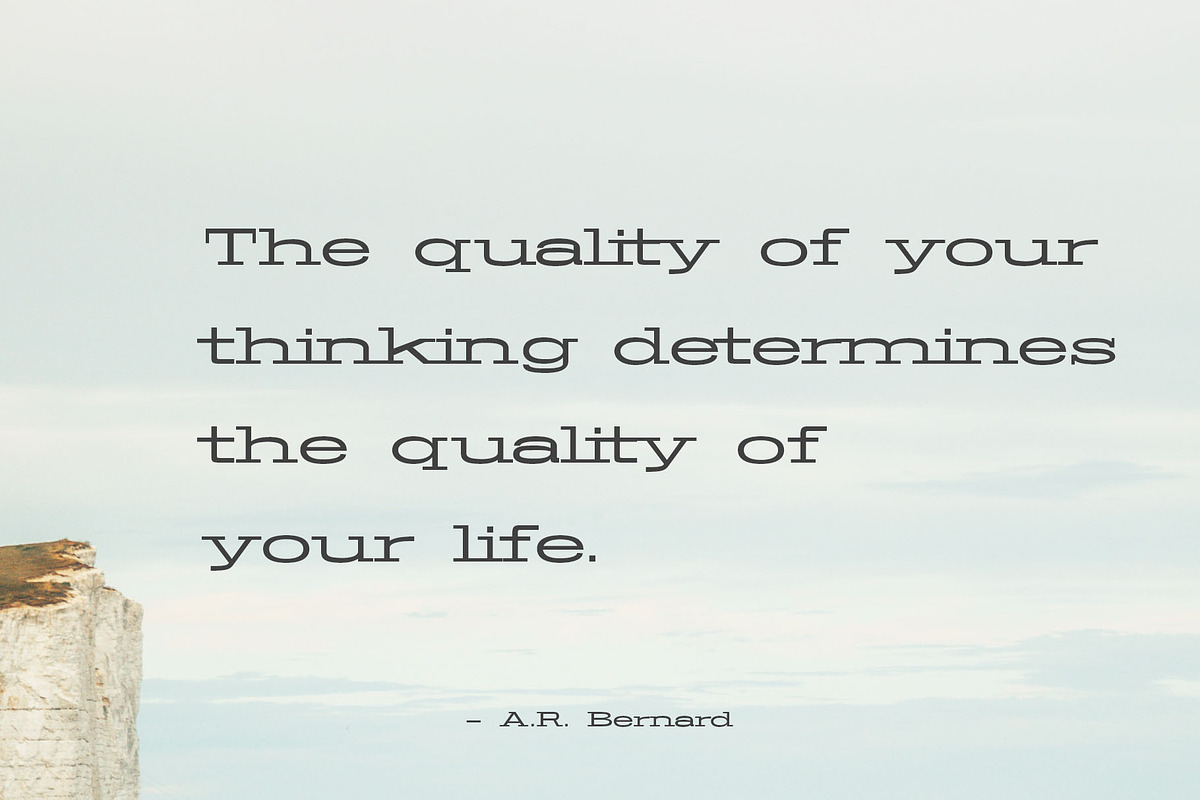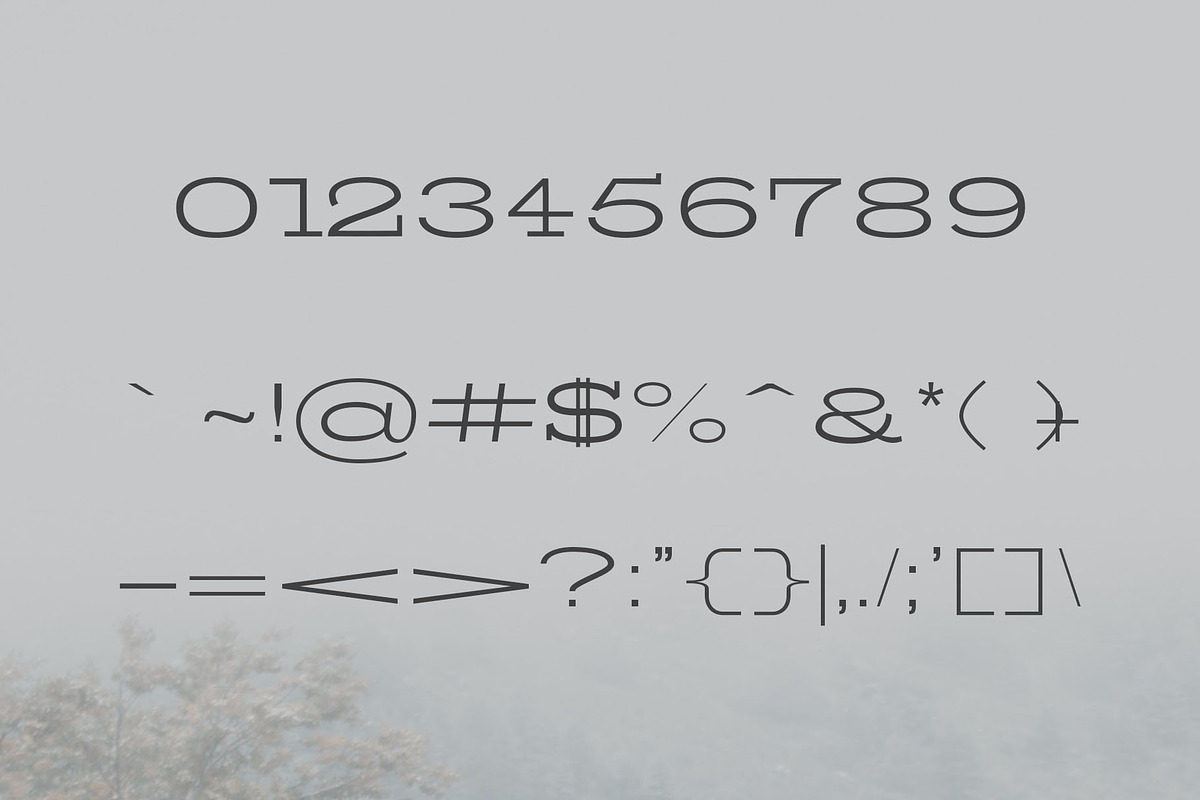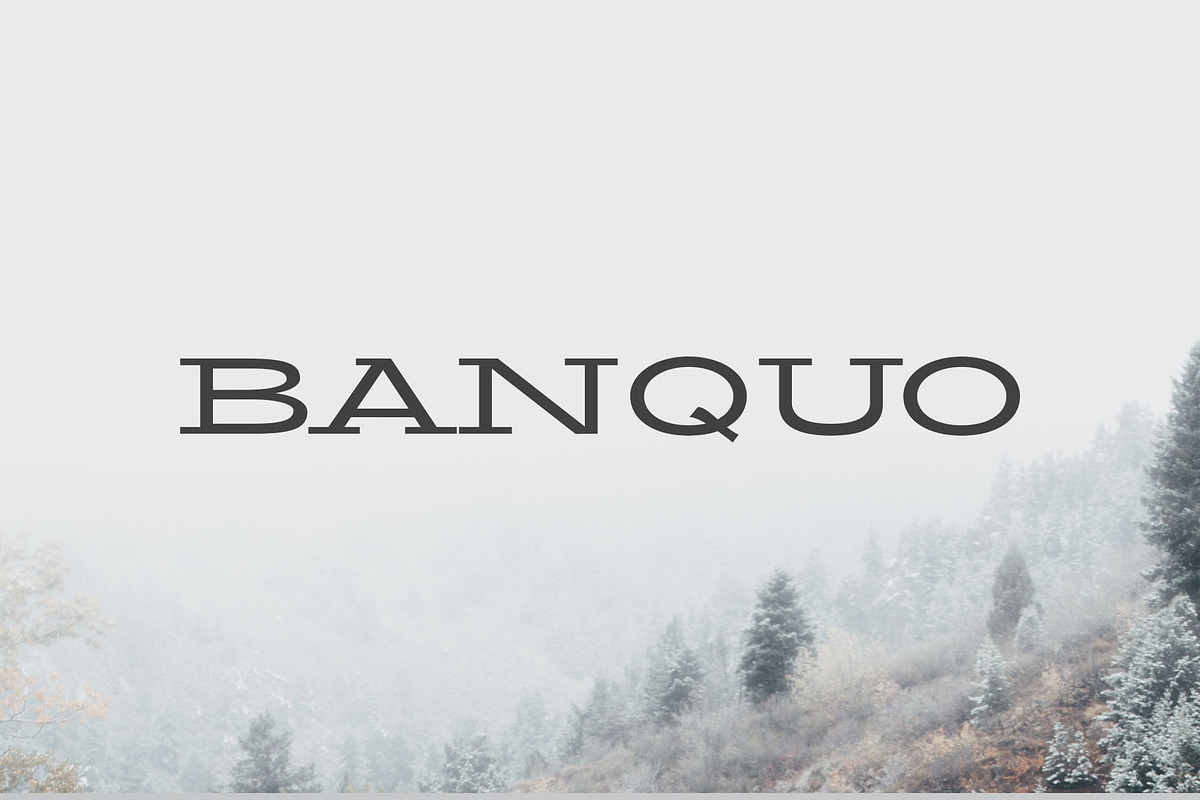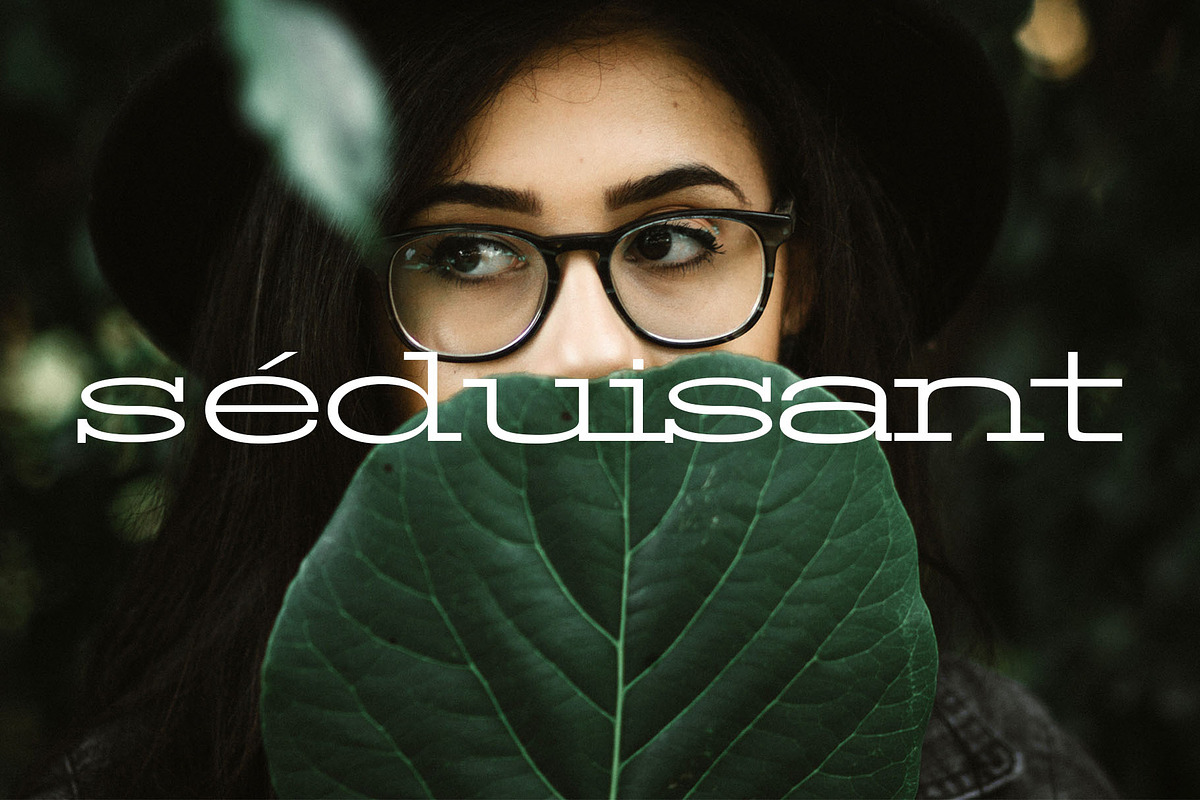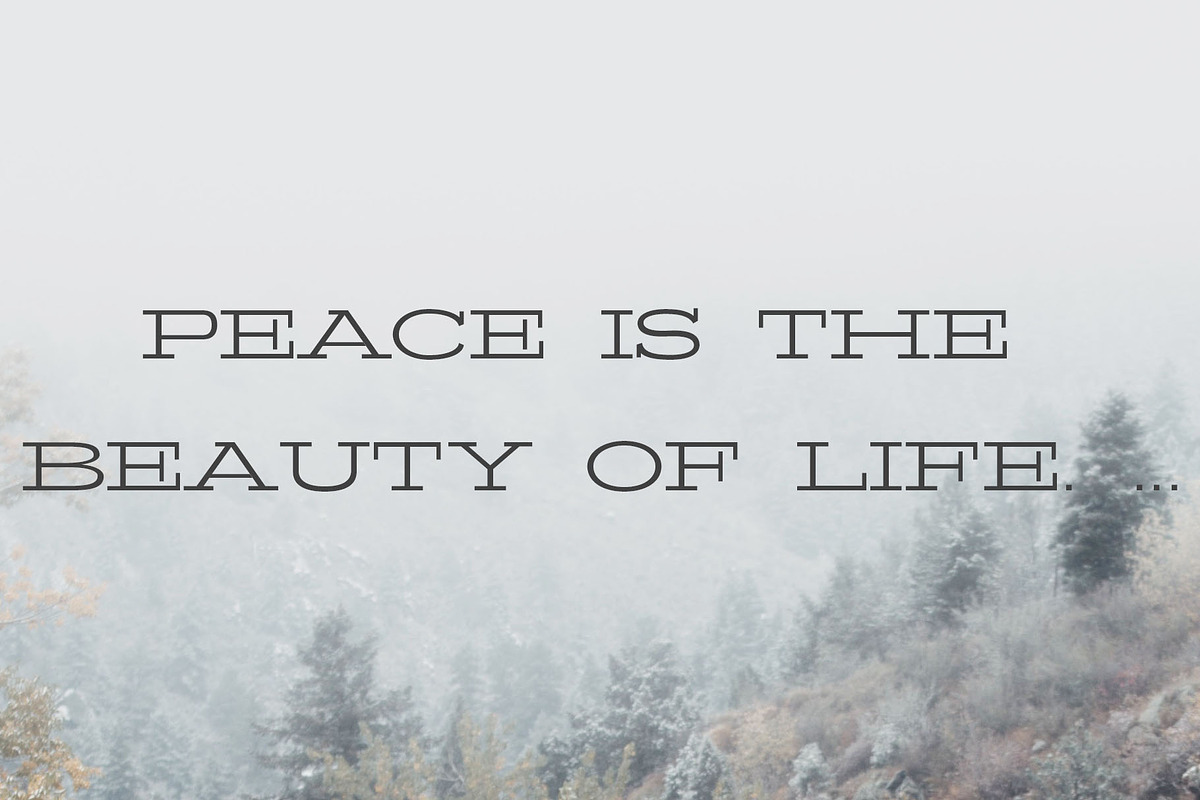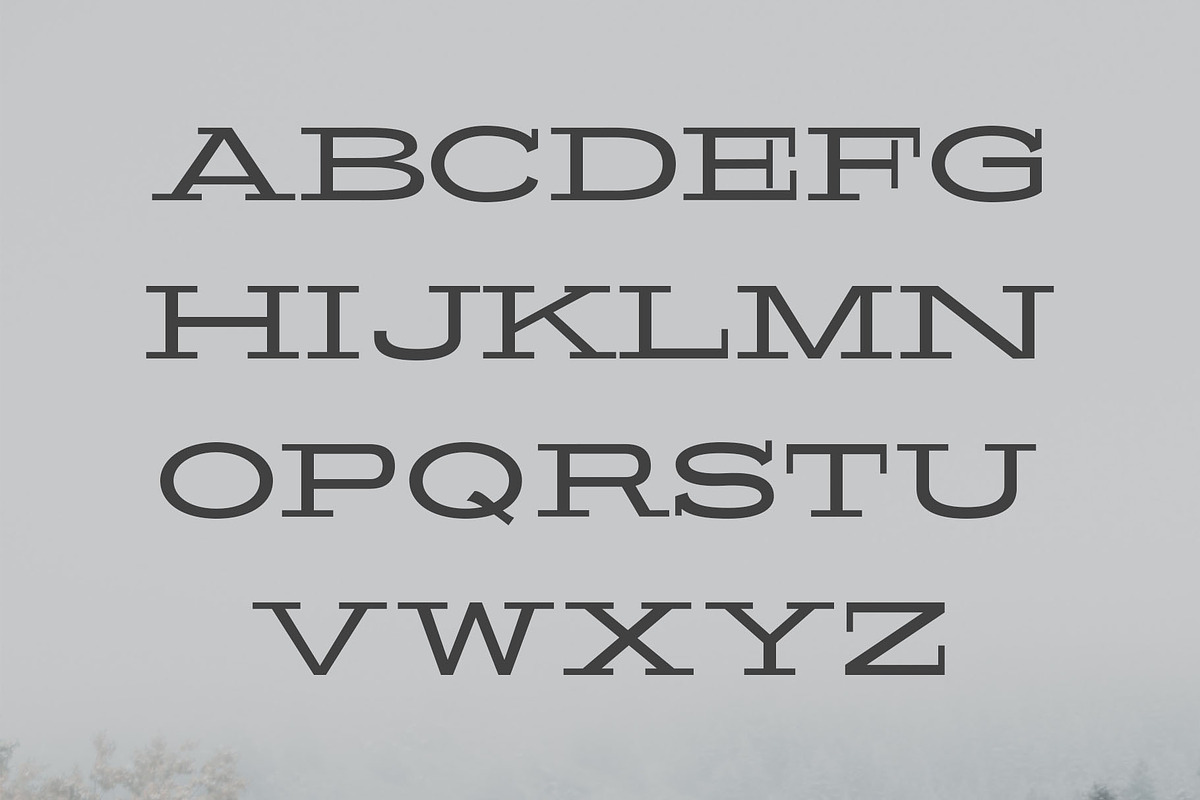
Banquo Serif Font Family
Banquo is a stylish extended modern serif font with classy unique design. Banquo comes in 4 weights with multilingual support. It is great for headlines, logotypes, signage, advertising, magazine, logos, invitations, texts, posters, notices, titles, name card, web layouts, headers, branding, weddings, social media, product design, stationery, and other any business related.